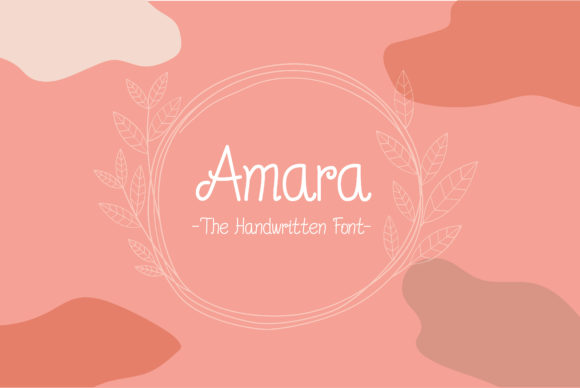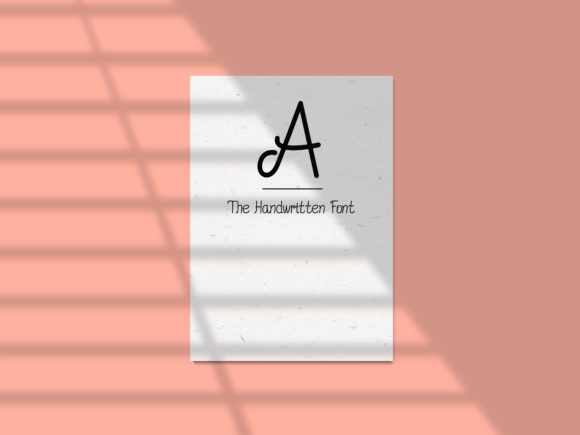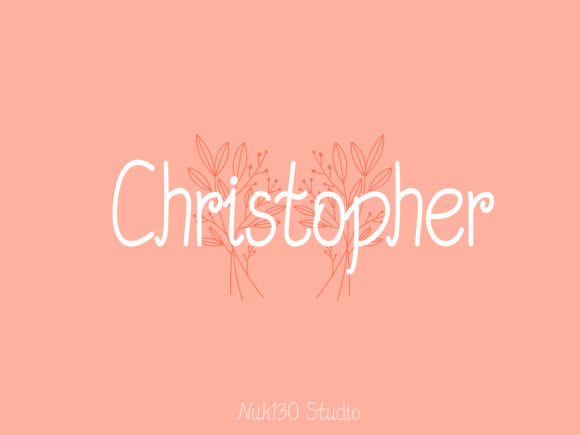
Amara Font
About Amara Font
Introducing Amara: The Simple and Neat Handwritten Font
Discover the beauty of simplicity with Amara, a lettered handwritten font that will inspire your creative projects. Its clean and neat style makes it a versatile addition to your font collection, suitable for various contexts and designs.
Amara’s handwritten look brings a sense of authenticity and warmth to your text. Its simple and clean design allows your words to stand out with clarity and elegance, making it a perfect choice for a wide range of creative applications.
As a font that boasts a simple charm, Amara becomes the go-to choice for projects that demand a touch of understated elegance. Its versatile style ensures that your work can effortlessly adapt to different design contexts, making your creations look polished and professional.
Embrace the beauty of Amara as you embark on your creative journey. Let it be the font that enhances each of your projects, allowing you to express your ideas with clarity and finesse.
As you explore the possibilities of Amara, you’ll find it to be a font that adds a special touch to any design. Its neat and simple characters make it perfect for branding, logos, invitations, quotes, social media posts, and more.
So, add Amara to your font collection and notice how it elevates your creative contexts. Embrace its simple and neat handwritten style and create projects that exude authenticity and elegance. With Amara as your font of choice, your creations will resonate with a timeless and versatile charm, making them stand out with grace and beauty. Embrace the simplicity of Amara and let it inspire your creativity to new heights!